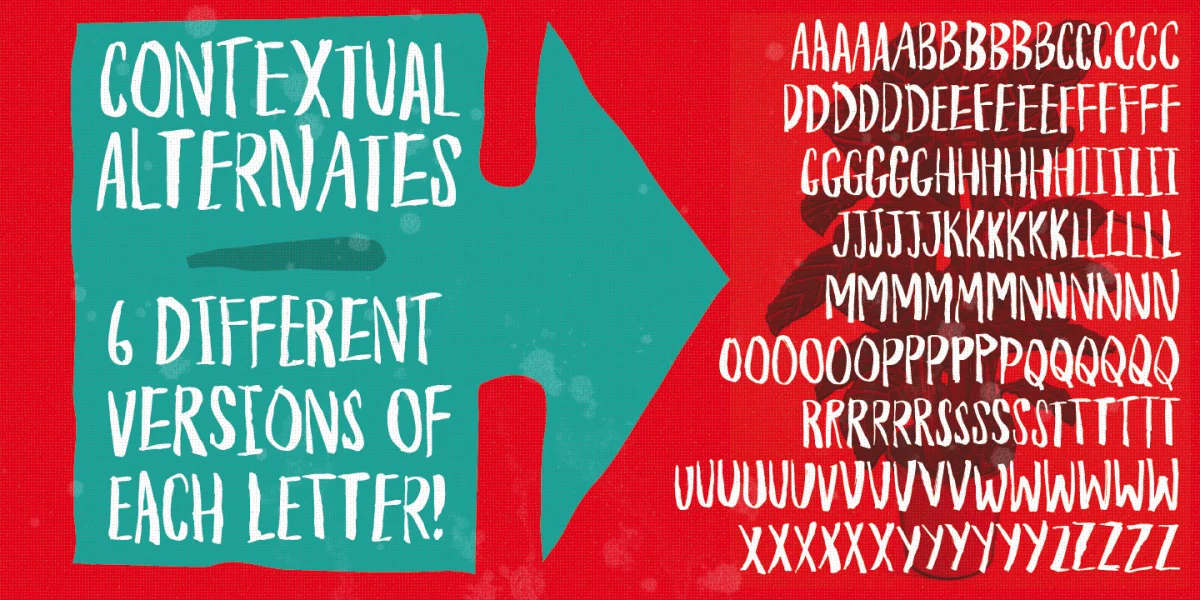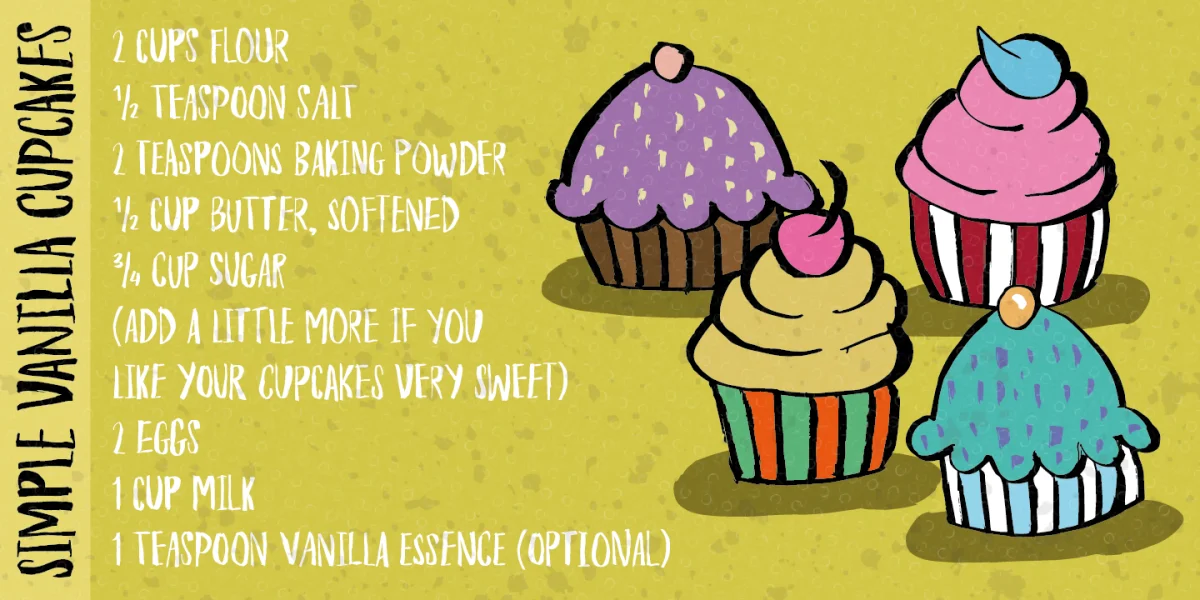
Houseplants are commonly grown for decorative purposes, positive psychological effects, keeping fresh or health reasons such as indoor air purification. Actually, just like this font has a positive effect on your artwork! This font comes with a heavy load of diacritics! On top of that, it has contextual alternates, which means your text cycles through 6 different versions of each letter! Hard to tell that this is actually a font!